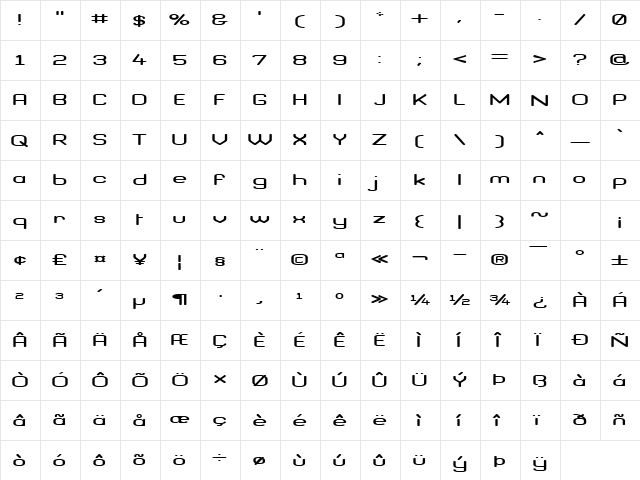
Brave New Era (flat) G98 Regular
Design Context for Brave New Era (flat) G98 Typeface
Brave New Era (flat) G98 is a composed and adaptable typeface that performs quietly and consistently across a wide range of design contexts.
Pro Tip: Use Brave New Era (flat) G98 in both headline and body roles to test its range before committing to a single application.